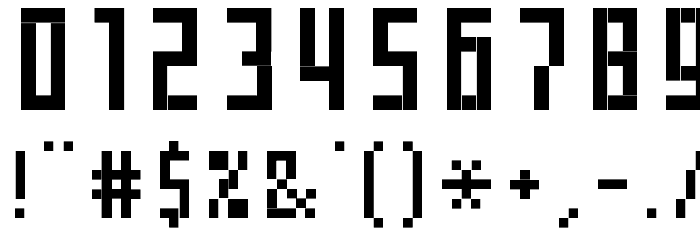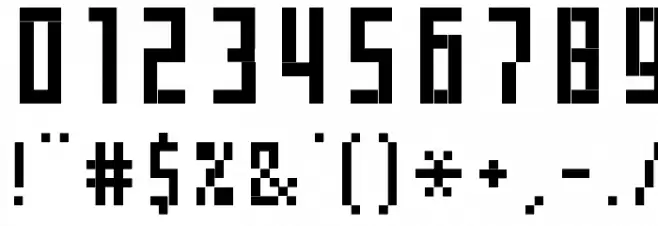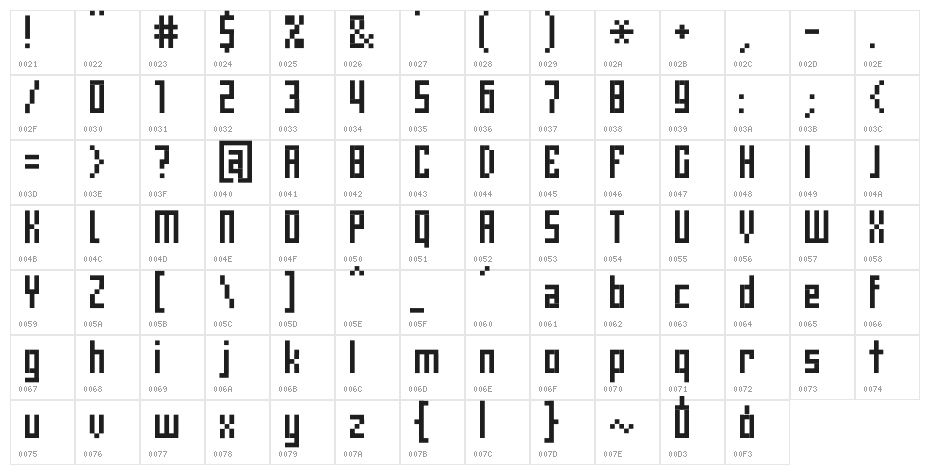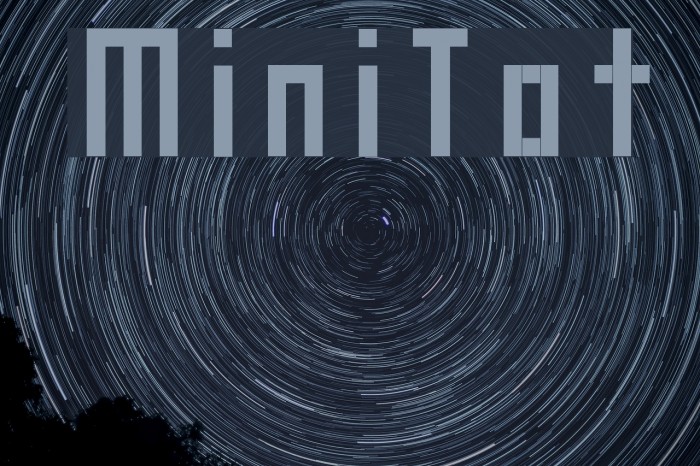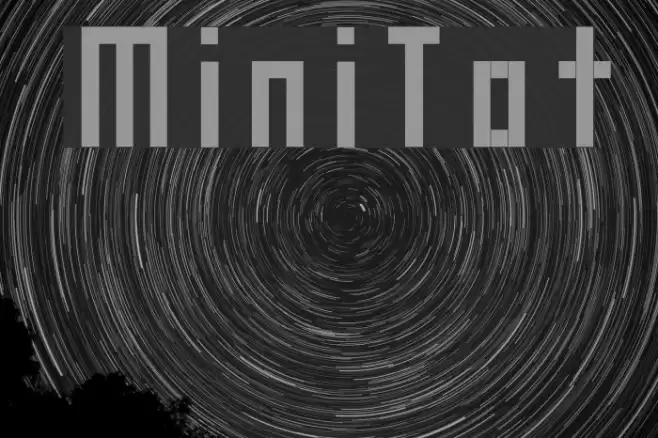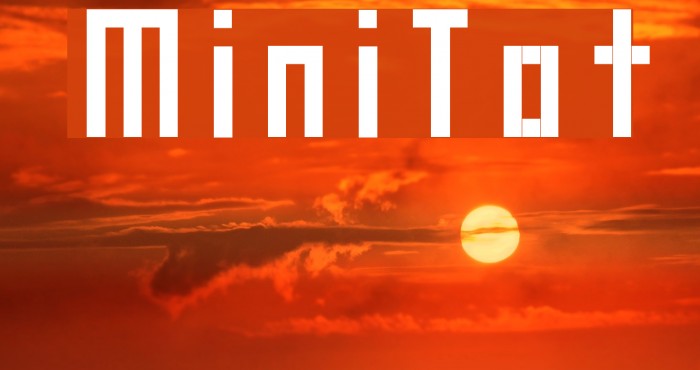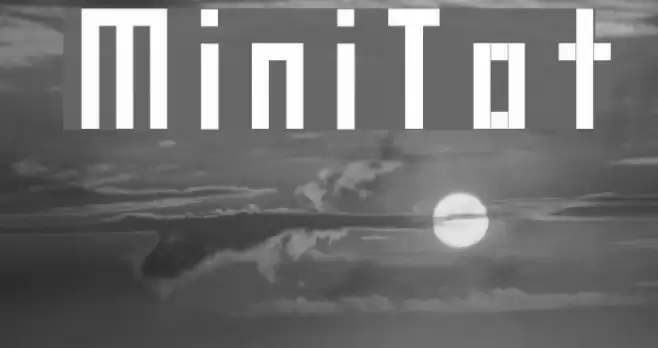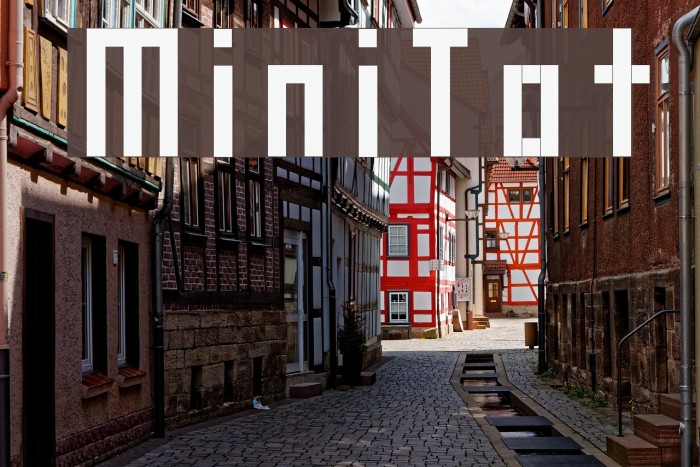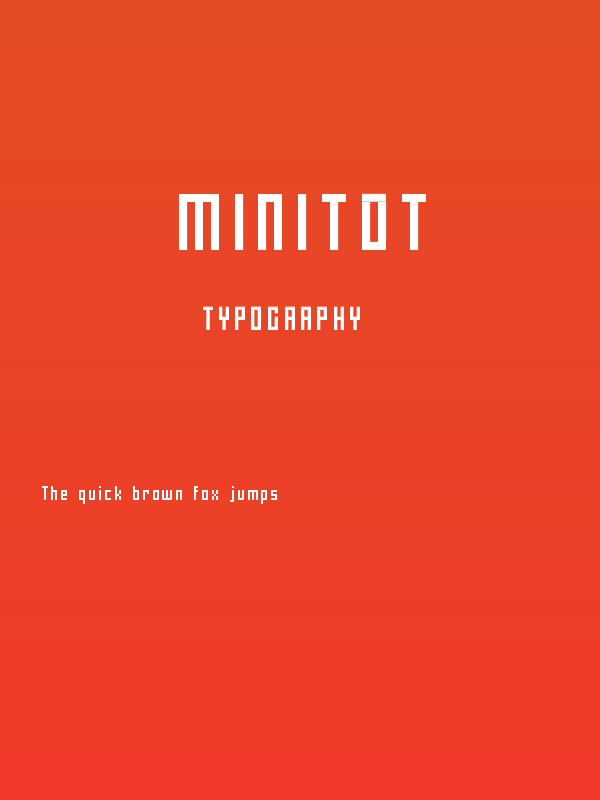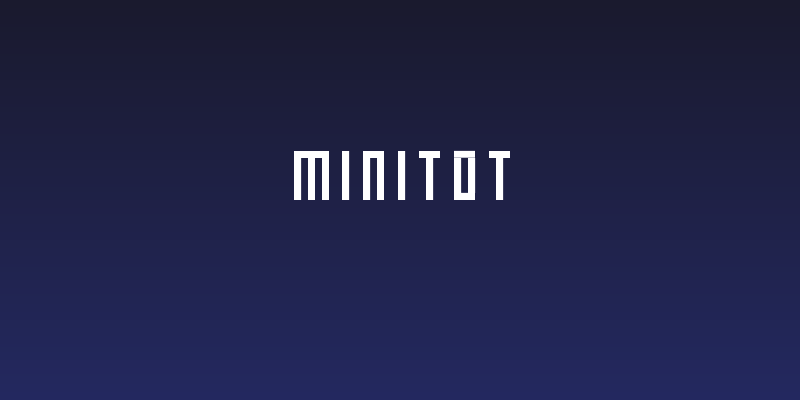
MiniTot Font
MiniTot Description
This font features a bold, geometric design with a pixelated, block-like appearance. Each character is constructed with a uniform stroke width, creating a cohesive and modern look. The uppercase and lowercase letters maintain a consistent height, while the numerals and special characters integrate seamlessly into the overall style. The font's rigid, structured form gives it a digital, retro feel reminiscent of early computer graphics or video game text. Its simplicity and clarity make it highly legible, even at smaller sizes.
| Overall Style | Modern, Retro |
| Use Case | Headlines, Logos, Digital displays |
| Proposed Projects | Ideal for retro video game designs, digital art projects, tech-themed branding, or any project seeking a nostalgic, digital look. |